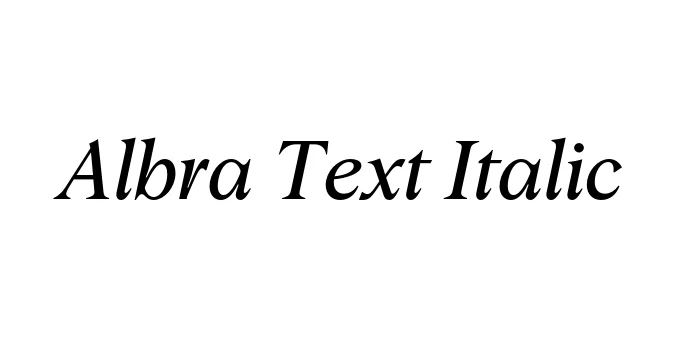
Albra Text Italic
Designed by BumbumType
| Similar Fonts | Sabon, Adobe Garamond, Caslon, ITC New Baskerville, Minion Pro |
Albra Text Italic is a sophisticated contemporary serif typeface designed specifically for high-readability in long-form editorial contexts. As part of the wider Albra collection, it maintains a perfect balance between classic elegance and modern utility. The italic variant is characterized by its rhythmic flow and refined stroke contrast, making it an essential tool for designers looking to add a touch of grace to body copy, pull-quotes, and academic texts.
Developed by the studio BumbumType, this typeface family excels in both print and digital mediums. Its sturdy proportions and carefully crafted terminals ensure that it remains legible even at smaller point sizes. Albra Text Italic is frequently chosen for luxury branding, high-end magazines, and literary publications where a timeless yet fresh aesthetic is required to engage the reader effectively across various platforms.
Albra Text Italic Best Uses
Ideal for magazines, journals, and long-form literary body text.
Excellent for luxury identity systems and sophisticated logo designs.
Highly legible for high-end blogs, online articles, and digital storytelling.
Adds a premium and upscale feel to high-end product labels and boxes.